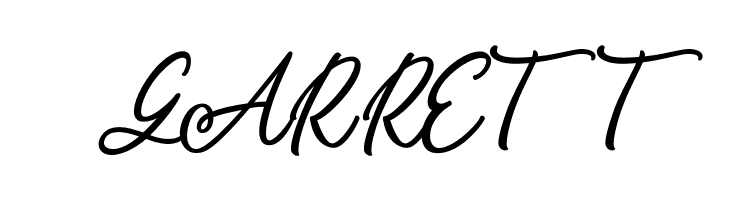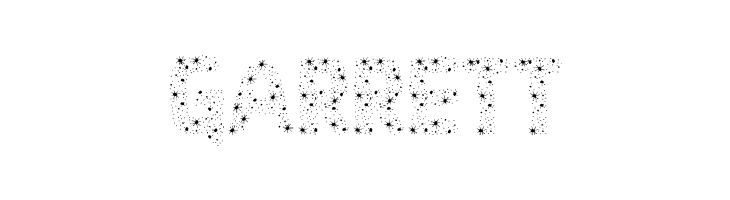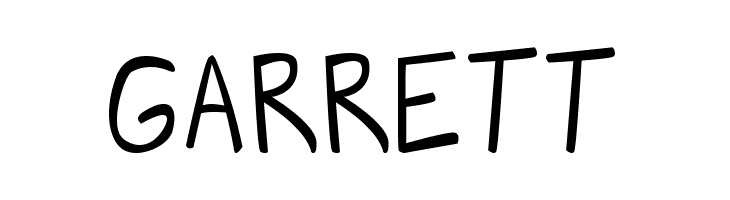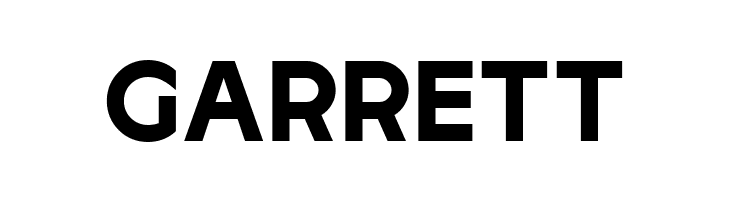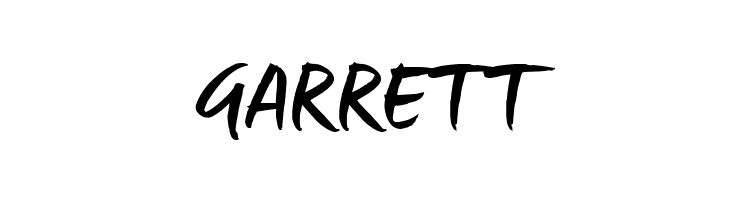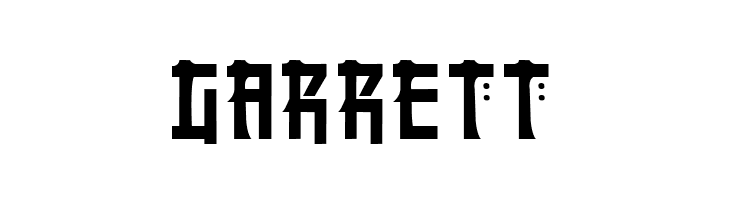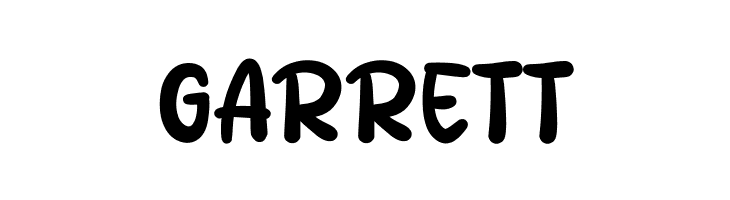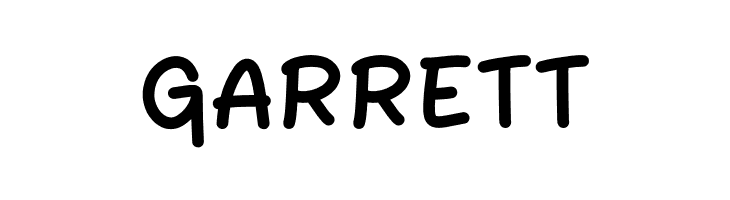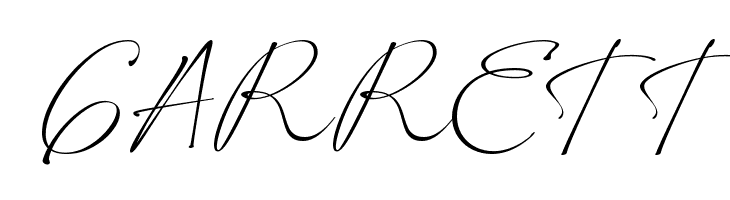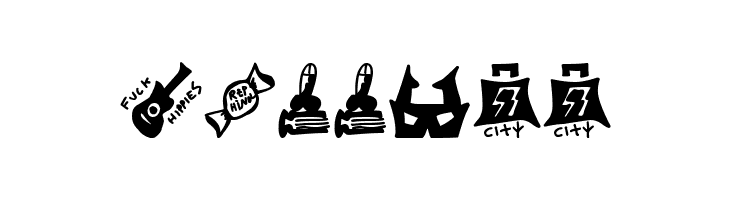
An elegant script font with flowing, cursive strokes and decorative flourishes.
A cursive, handwritten font with elegant, flowing characters and medium contrast.
A bold, jagged font with a hand-cut, edgy style.
A bold, jagged, and dynamic font with sharp, angular edges.
A bold, jagged font with an edgy, hand-crafted appearance.
A bold, jagged font with sharp, angular edges and an aggressive style.
A playful, grunge-style font with bold outlines and textured interiors.
A bold, grunge-style font with ink-like textures and playful outlines.
A bold, brush-style handwritten font with dynamic strokes.
A dynamic handwritten font with fluid strokes and a playful yet sophisticated style.
A decorative, sketch-like font with a hand-drawn appearance.
Hand-drawn, graffiti-style icon font with bold, whimsical illustrations.
A bold, distressed font with a vintage, rugged appearance.
A fluid and elegant handwritten style with smooth, flowing curves.
An artistic font where letters are formed by human figures in various poses.
A bold, modern sans-serif font with a clean and geometric design.
A playful, handwritten font with rounded edges and a casual style.
A bold, playful handwritten font with rounded edges and a casual style.
A bold, angular font with a futuristic, geometric design.
A bold, italicized font with a geometric, angular design and futuristic aesthetic.
A bold, geometric font with hollow interiors and angular lines, perfect for modern designs.
A bold, hollow, italic font with a modern, geometric style.
A bold, angular, and futuristic italic font with unique cut-out details.
A playful, comic-style font with a handwritten feel.
A playful, comic-style font with bold, irregular characters.
A bold, playful font with a handwritten style and smooth, slanted letterforms.
A bold, italic font with a dynamic and playful style.
A playful, italicized font with smooth, fluid strokes and a casual vibe.
A playful, bold font with rounded strokes and comic book style.
A bold, handwritten-style font with dynamic and slightly slanted characters.
A bold, italicized font with a dynamic, comic-inspired style.